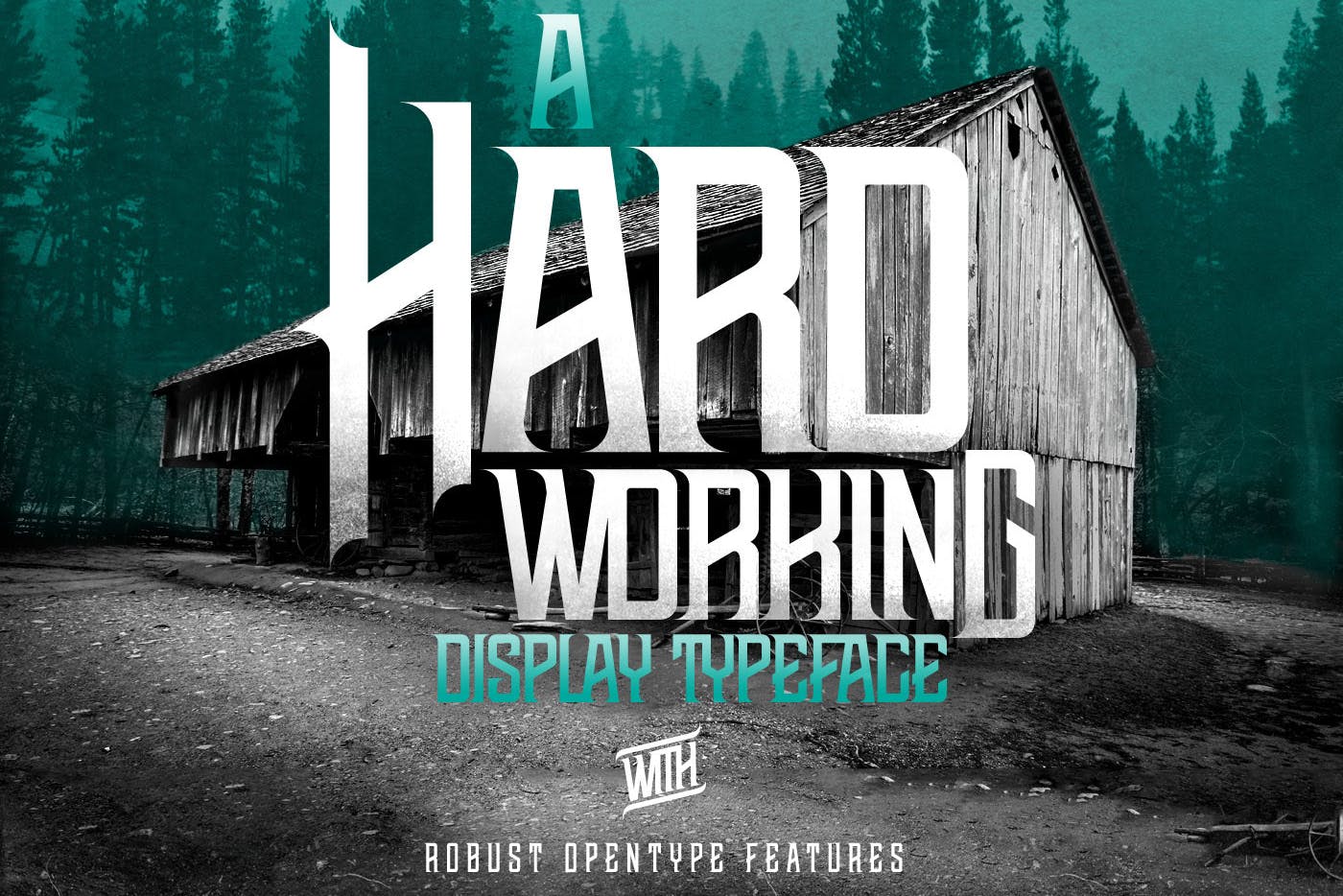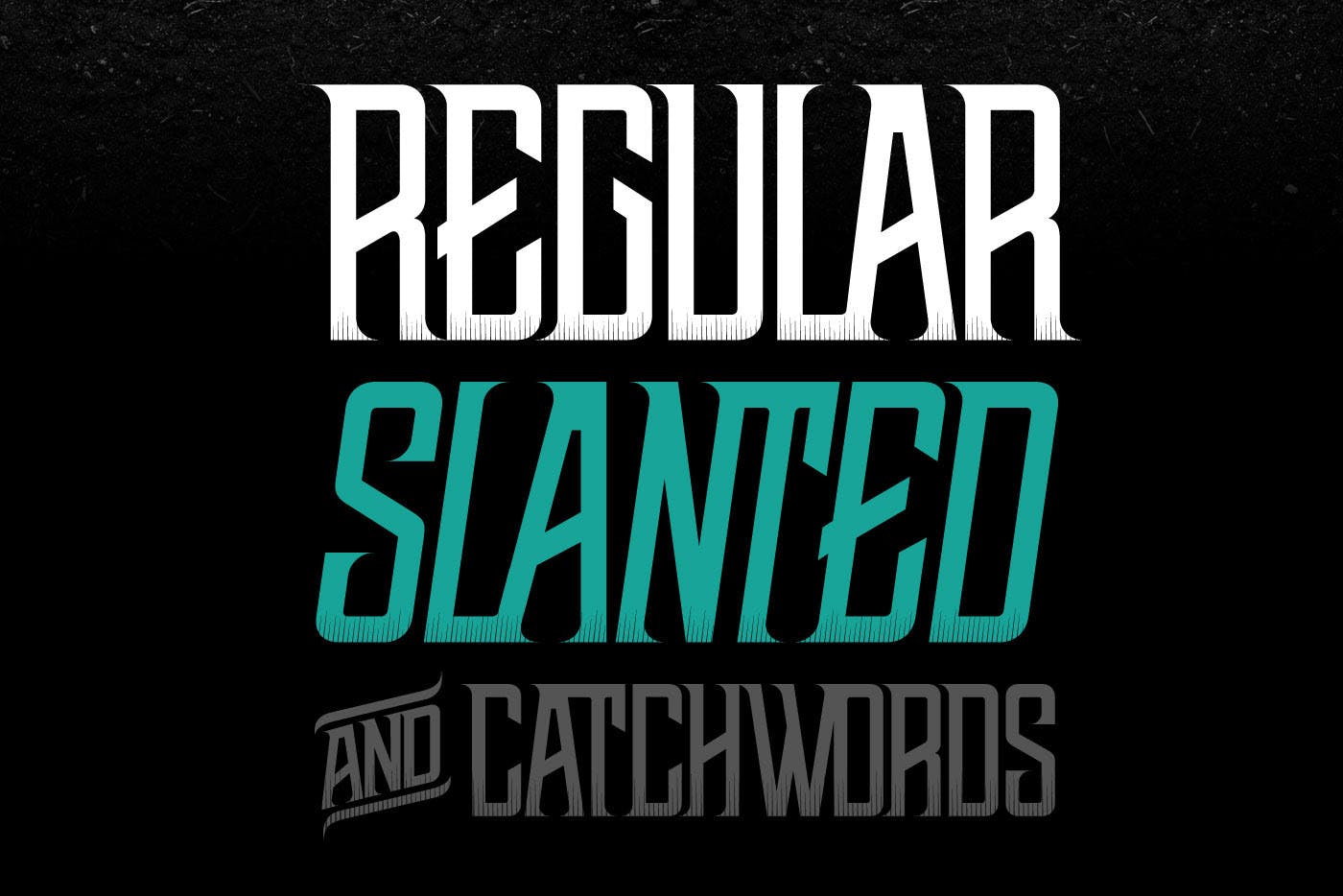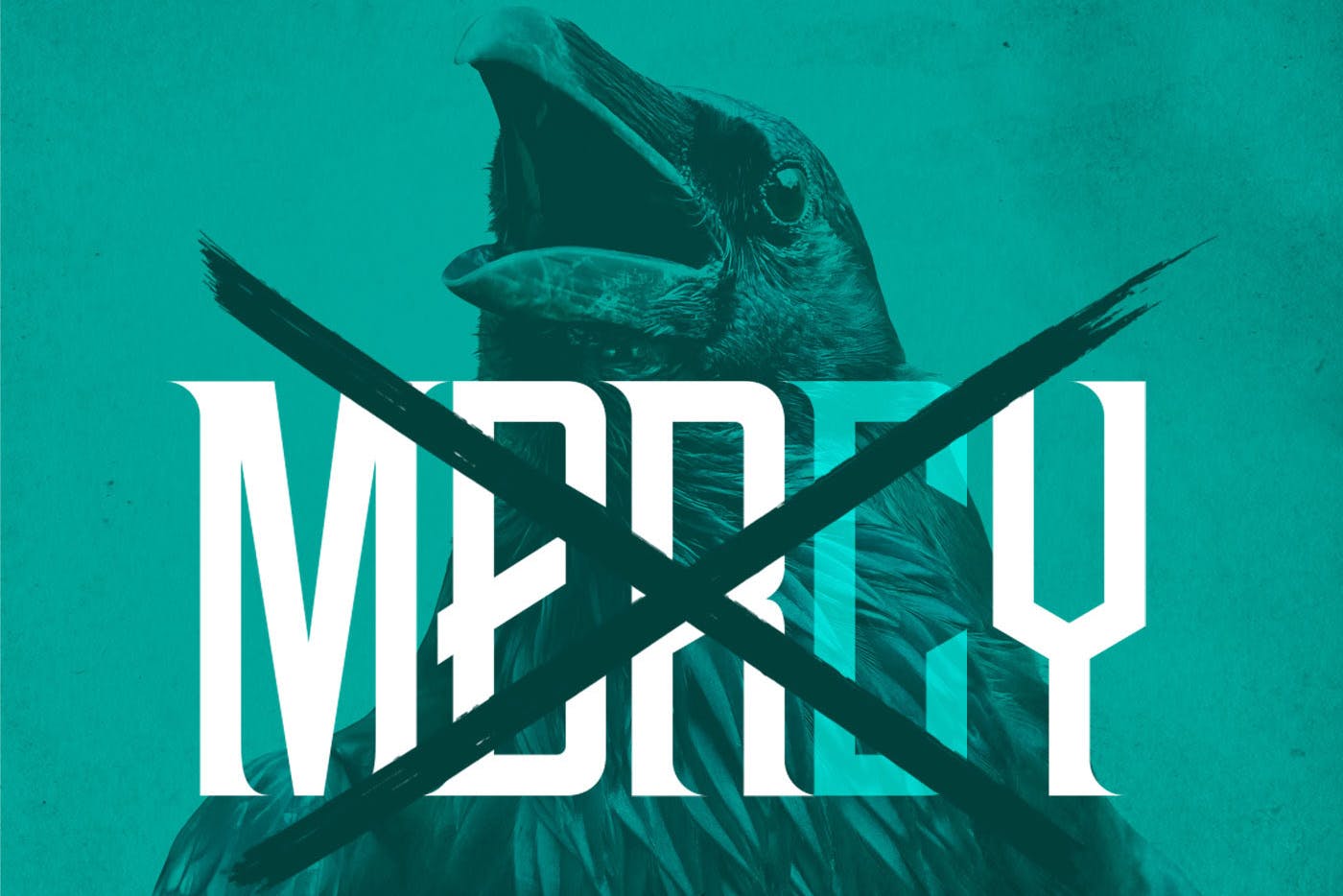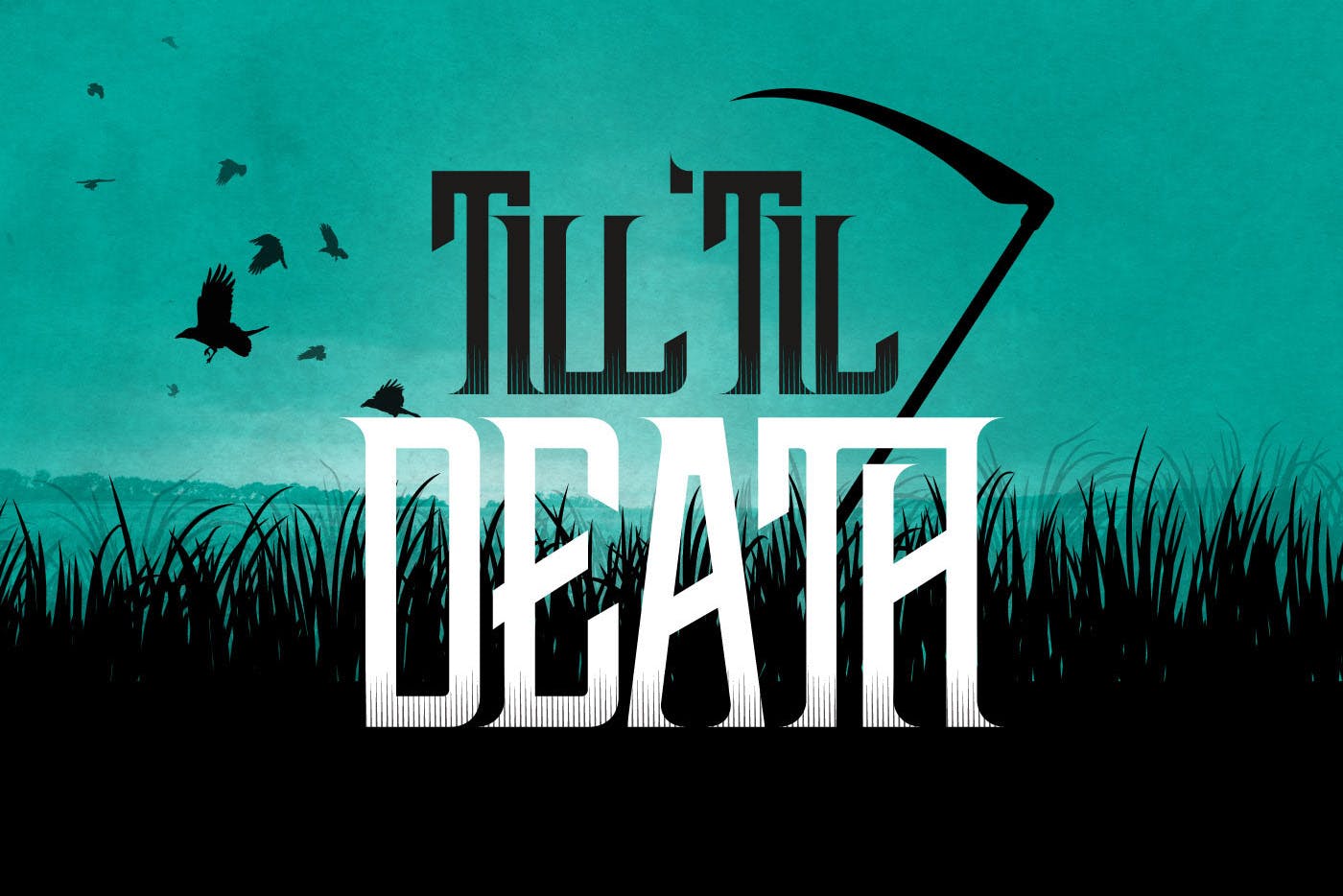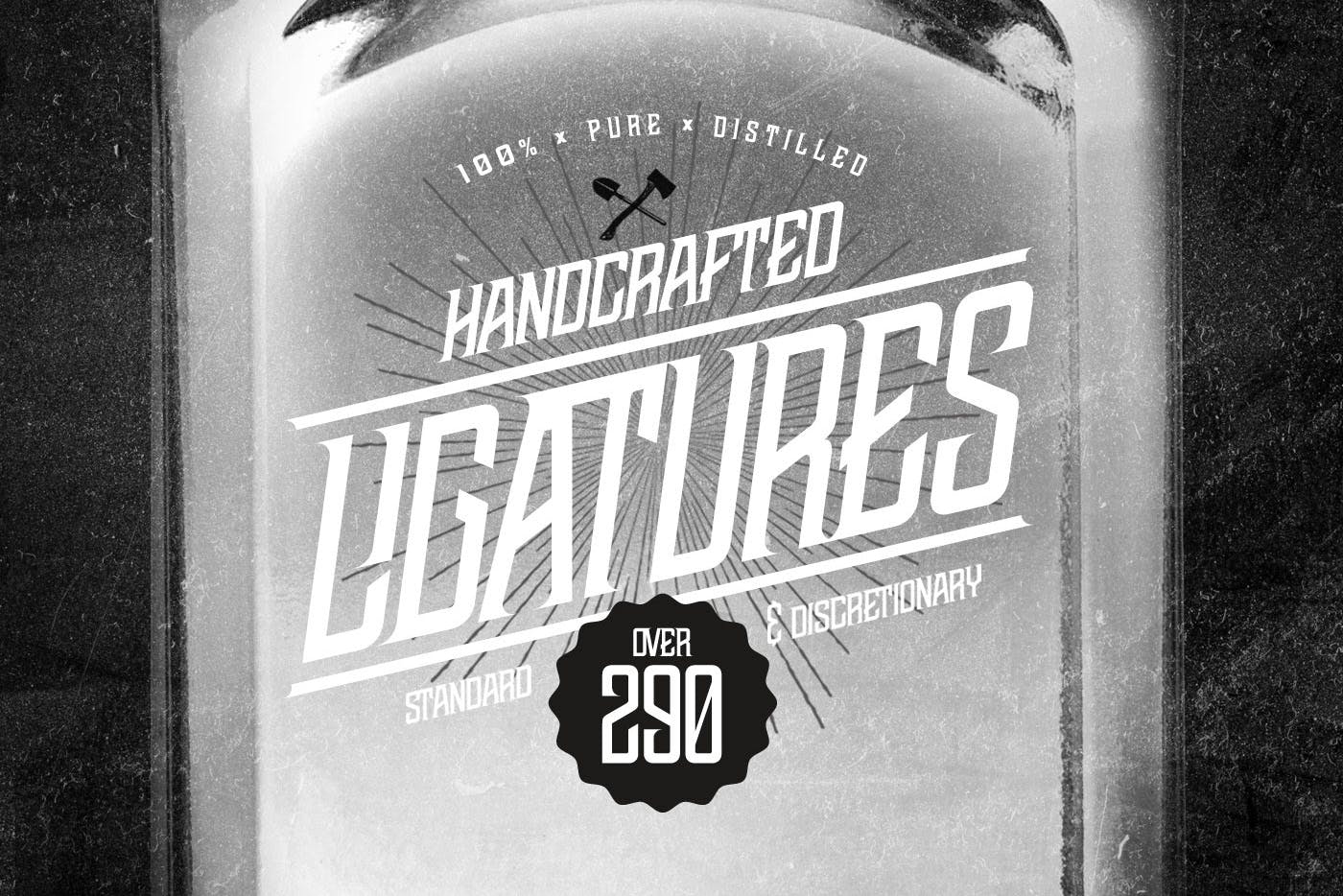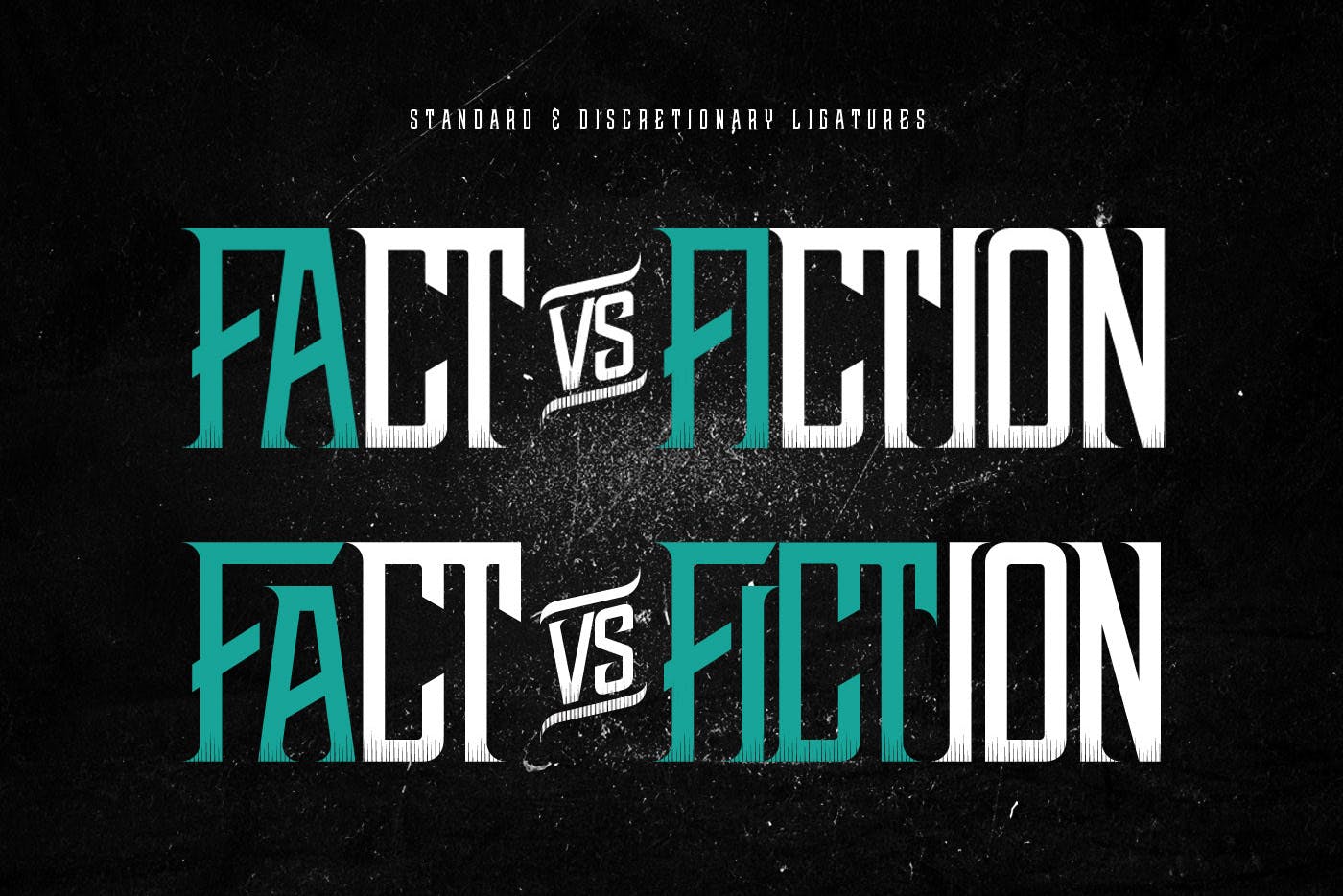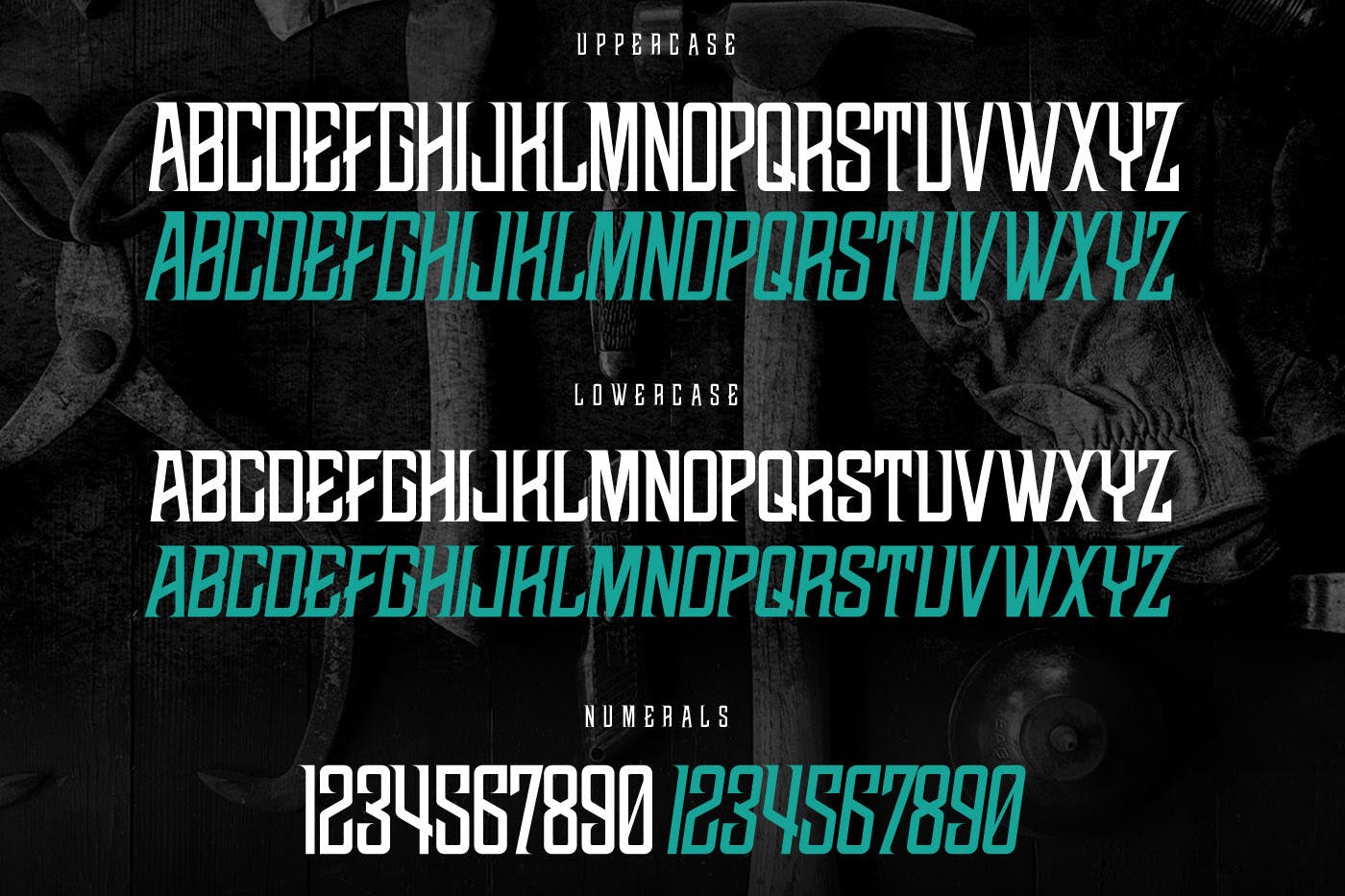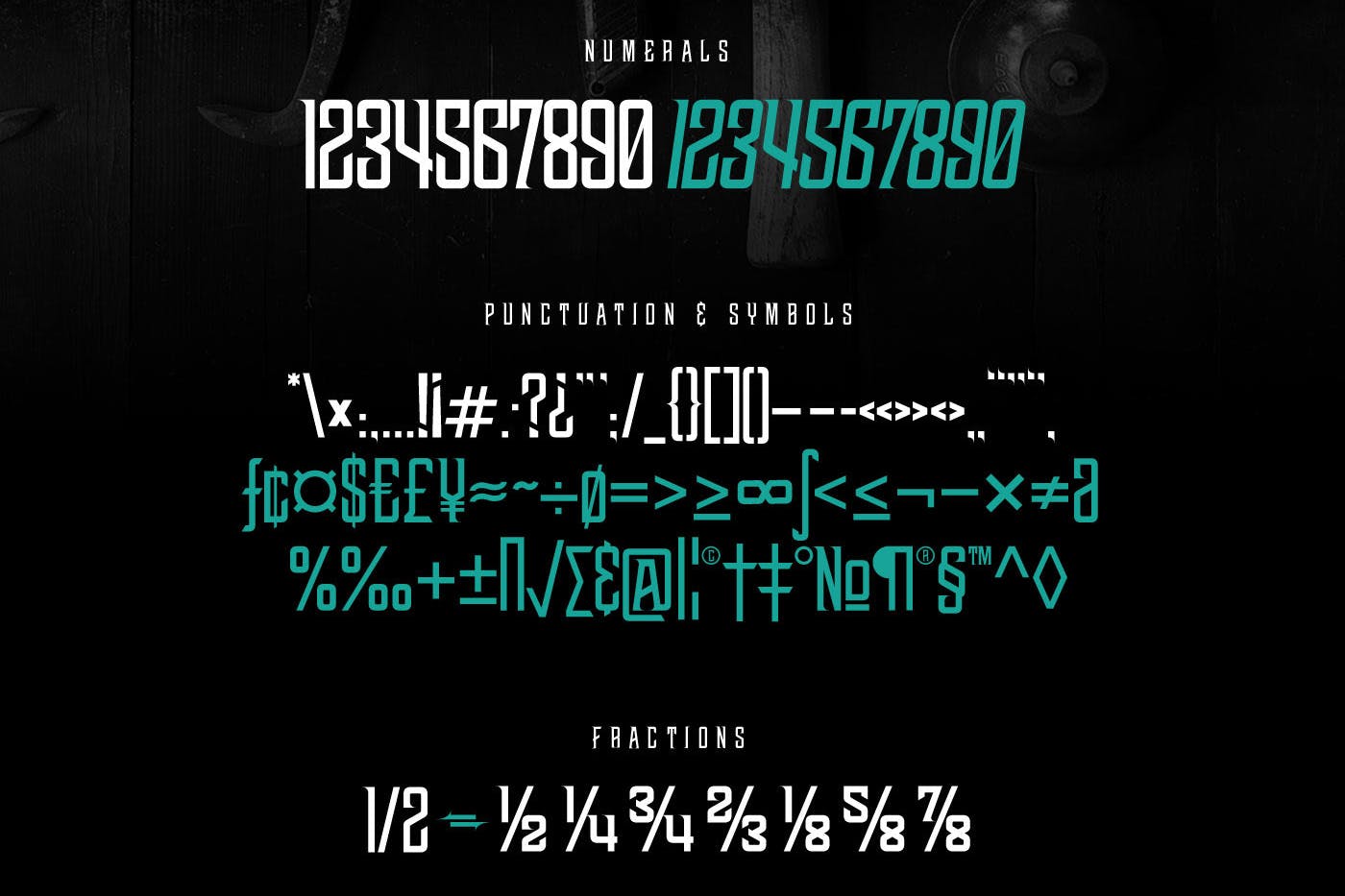
Free NWB Marvis Display Basic
Free NWB Marvis Display Basic is one of the fonts you can have today. This font is a vintage display typeface with a contemporary feel. Late 19th-century aesthetics inspired its’ design, but it is equally suitable for modern design applications. So, it is available the latest updates and more complete sets and styles of this typeface. Go getting the Premium Version, it features over 290 ligatures, 1357 total glyphs, context sene of his works. Also, it is coming with assistive alternates and 35+ catchwords. These features allow for deep typesetting customization options for poster headlines, movie titles, product labels, and brand identities as well.